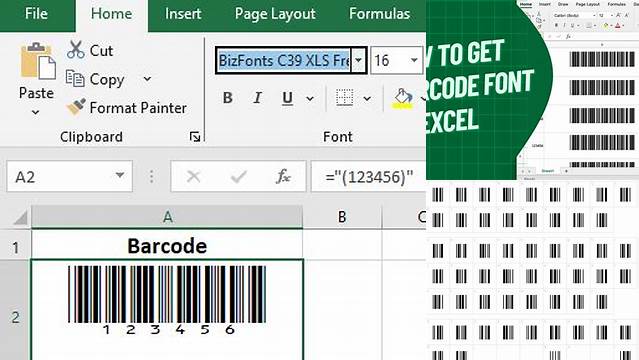
Get Free Barcode Fonts For Excel: Simple Download
Understanding Barcode Fonts: What Are They, Anyway?
Hey there, guys! So, you're diving into the world of barcodes in Excel, and you've heard whispers about barcode fonts. What in the world are these things? Well, let's break it down simply. A barcode font isn't like your typical Arial or Calibri font that just makes letters look different. Instead, when you apply a barcode font to a series of numbers or characters in Excel, it transforms those numbers into a scannable barcode image. Think of it as a special translator: you type 12345, select a barcode font like Code 39, and poof, those numbers become a pattern of black and white bars that a scanner can read. It’s pretty neat, right? The magic behind it is that these fonts are specifically designed with certain algorithms that represent data visually. When you're looking to download free barcode font for Excel, you're essentially looking for one of these special typeface files that your computer can install and then make available within applications like Microsoft Excel. These fonts are standardized, meaning there's a common language (like Code 39, Code 128, etc.) that scanners understand, ensuring your newly generated barcode actually works. Without the correct font, your Excel sheet would just show plain numbers, which is totally useless for scanning purposes. So, when we talk about a free barcode font for Excel, we're discussing a fundamental tool that bridges the gap between digital data and physical product tracking, inventory management, or anything else you can imagine needing a scannable code for. It’s a low-cost, high-impact solution that many small businesses and individuals rely on to bring a bit of automation into their daily operations without investing in expensive software. Understanding this core concept is your first step on the journey to becoming an Excel barcode wizard. We’ll get into the nitty-gritty of how to get your hands on these incredible tools and get them working seamlessly in your spreadsheets, making your life a whole lot easier, folks! It’s all about empowering you with the knowledge to leverage these simple yet powerful tools.
Why You'd Want Barcode Fonts in Excel: The Big Picture
Alright, let’s get down to brass tacks: why would anyone even bother with a free barcode font for Excel? What’s the big deal? Well, guys, the benefits are pretty massive, especially if you're dealing with anything that needs tracking, inventory, or quick identification. Imagine you're managing a small warehouse, a personal library, or even just your massive DVD collection. Manually typing in product IDs or book numbers every time you want to check something in or out is a huge time sink and, let’s be honest, a recipe for errors. Human error is a real pain, right? This is where a free barcode font for Excel swoops in like a superhero. By converting your existing data – like product SKUs, serial numbers, or book ISBNs – directly into scannable barcodes within your Excel spreadsheet, you instantly streamline your processes. Instead of fumbling with keyboards, you just grab a simple barcode scanner (they're super affordable these days!) and bip, the data is entered. It’s faster, way more accurate, and frankly, it just feels more professional. Think about reducing data entry mistakes, speeding up checkout processes, making inventory audits a breeze, or even tracking assets around your office. All these tasks become infinitely simpler and more efficient with barcodes. For small businesses, this can mean saving countless hours, reducing operational costs, and improving overall data reliability. You don't need fancy, expensive enterprise resource planning (ERP) software to get these benefits; you can achieve a lot with just Excel and a good free barcode font. It democratizes the power of automated data capture, making it accessible to anyone with basic spreadsheet skills. Plus, it's incredibly satisfying to see your data transform into those crisp, scannable lines. It’s about leveraging a simple tool to achieve significant operational improvements, making your work smarter, not harder. So, if efficiency, accuracy, and ease of use are on your wish list, then exploring how to download and use a free barcode font for Excel is definitely a journey worth taking. It's truly a game-changer for many everyday tasks!
Picking the Right Barcode Type for Excel: Code 39, Code 128, and More
Okay, so you're convinced that using a free barcode font for Excel is the way to go. Awesome! But before you dive into downloading, there's a crucial step: understanding which type of barcode font you actually need. It’s not a one-size-fits-all situation, guys. The two most common and versatile barcode types you’ll encounter for general use, especially with font-based solutions in Excel, are Code 39 and Code 128. Let’s break them down. Code 39 (also known as Code 3 of 9) is one of the oldest and most widely used barcode symbologies. It’s super simple and works by representing each character with nine elements (five bars and four spaces), three of which are wide and six are narrow. The biggest draw for Code 39, especially when you're using a free barcode font for Excel, is its simplicity and the fact that it supports uppercase letters, numbers (0-9), and a few special characters (like hyphen, period, space, dollar sign, percent sign, plus sign, and slash). A key thing to remember with Code 39 fonts is that they often require an asterisk (*) at the beginning and end of the data you want to encode. This asterisk acts as a start/stop character for the scanner, telling it where the barcode begins and ends. It’s a non-data character, meaning it doesn't get encoded into the actual information but is essential for the font to render correctly and for scanners to read it. Code 128, on the other hand, is a more modern and highly efficient linear barcode. It’s known for its ability to encode the entire ASCII character set (all 128 characters, hence the name), including lowercase letters, uppercase letters, numbers, and many more special characters and control codes. This makes Code 128 incredibly versatile. It also tends to produce denser barcodes (meaning more data can be packed into a smaller physical space) compared to Code 39. Unlike Code 39, Code 128 fonts typically don't require the asterisk start/stop characters when you’re just typing them out; the font handles that internally. So, if you need to encode lowercase letters or more complex strings, Code 128 is usually your go-to. When choosing a free barcode font for Excel, think about the data you need to encode. If it's just numbers and uppercase letters for basic inventory, Code 39 is perfectly fine and often simpler to implement. If you need more flexibility with character sets or want denser barcodes, Code 128 is the superior choice. There are other types too, like EAN-13, UPC-A (common for retail products), and even QR codes (though QR codes aren't fonts, they’re 2D matrix codes). For font-based solutions in Excel, stick mostly to Code 39 and Code 128 to keep things straightforward and highly compatible with most scanners. Making an informed choice now will save you headaches later, trust me!